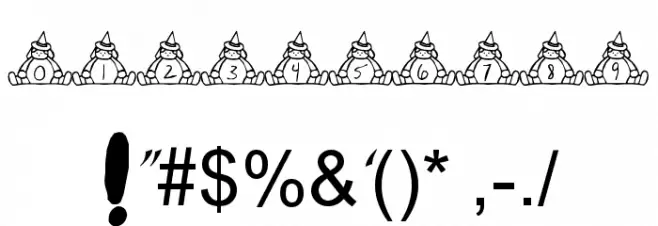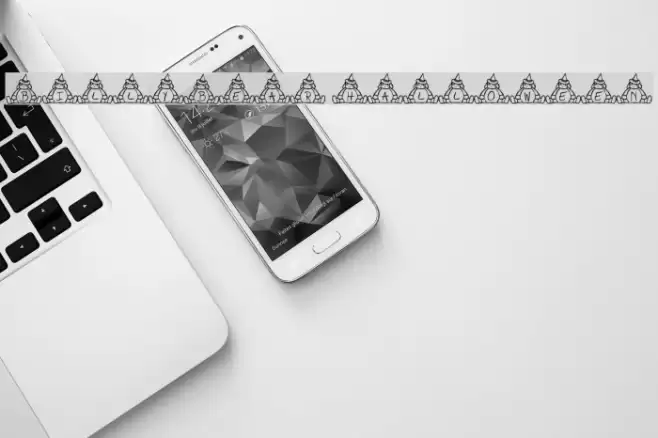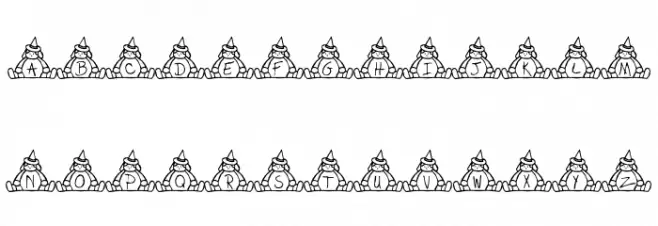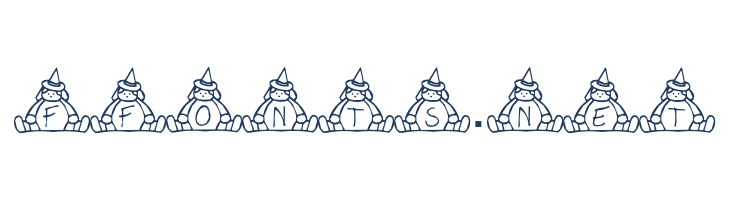
BillyBear Halloween Font
| Estilo geral | Playful, Festive |
| Caso de uso | Headlines, Logos, Invitations |
| Projetos propostos | Ideal for children's books, Halloween-themed invitations, party decorations, and playful branding. |